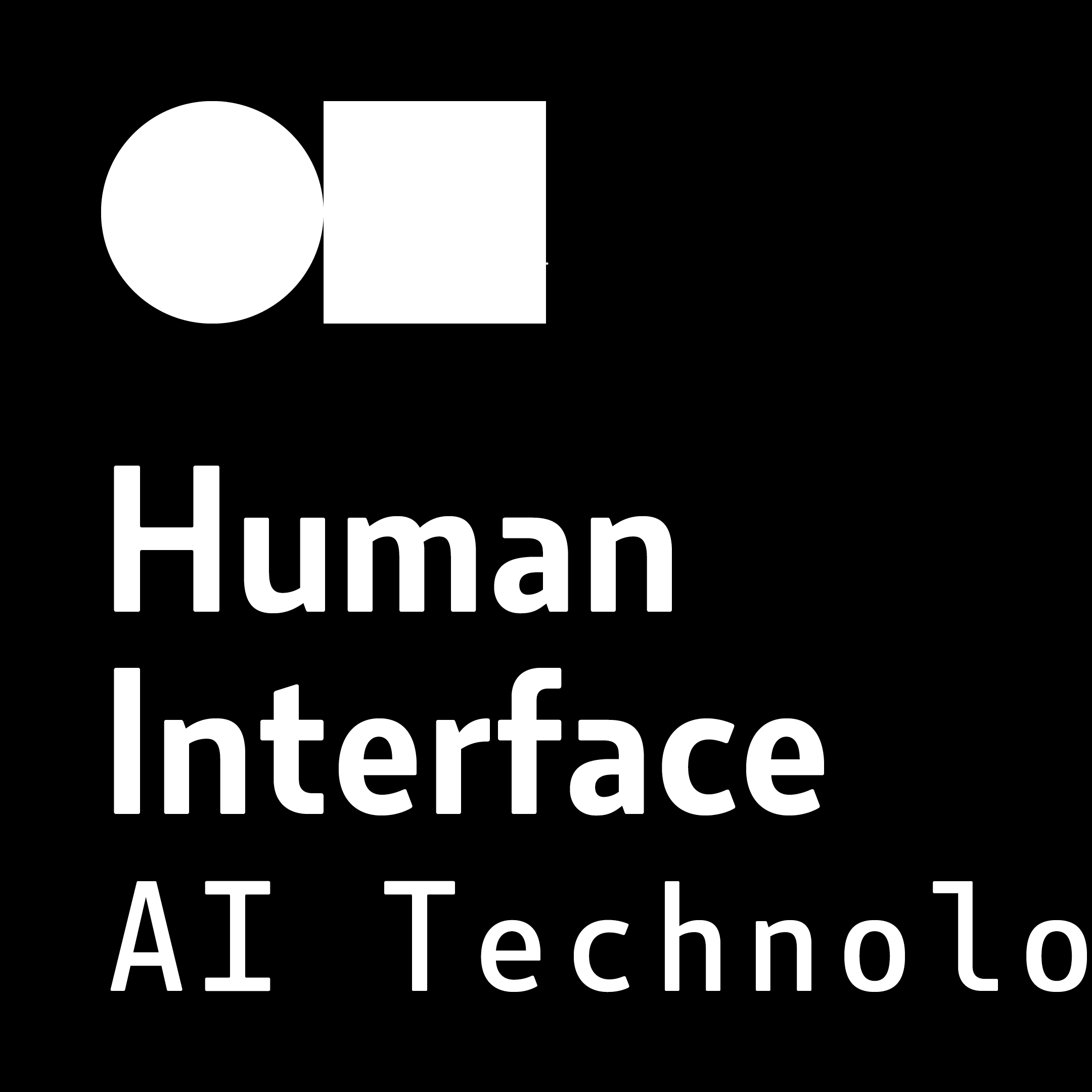
Botanika
The initial motivation for creating Botanika was the desire to develop a text version of the Magion typeface. Although the characters were initially drawn with the same proportions, they were subsequently modified to improve readability. The typeface retains some characteristic features of its source, such as the upper ascender serif of the letter “i” and a similar lower oustroke serif of the letter “l”. Reducing the x-height has given this family a new and original character. The italics are slightly narrower than the regular style without losing the upright’s austere elegance, and they are distinctive enough to stand out in the text. Alternative characters can enliven the text or, conversely, soften headlines by using more traditional letterforms.
The Mono version is a monospace font with a 10-point pitch. This means that at 10 pt, 10 characters fit exactly within the width of one inch, so individual letters occupy 60% of the em width. This family also includes a corresponding italic version.
Despite its lower x-height, the typeface is reliably used for typesetting medium- to long-length texts. Its slightly archaic feel adds a touch of uniqueness to the text. If you’re looking for an alternative to cold, neutral sans-serif typefaces, Botanika is the proven choice.